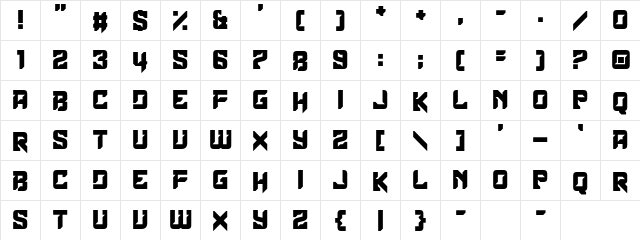
Elder Head Up Regular
| Designer | Allison James |
Design Context for Elder Head Up Typeface
Elder Head Up is a composed and adaptable typeface that performs quietly and consistently across a wide range of design contexts.